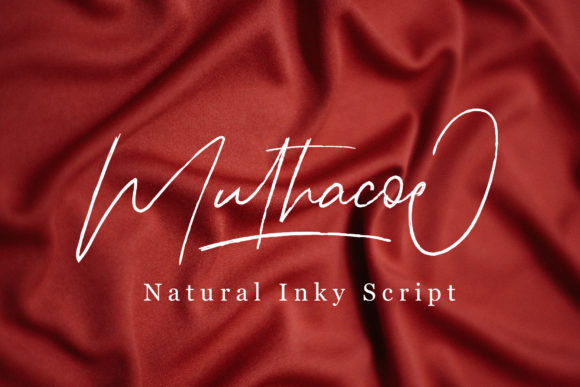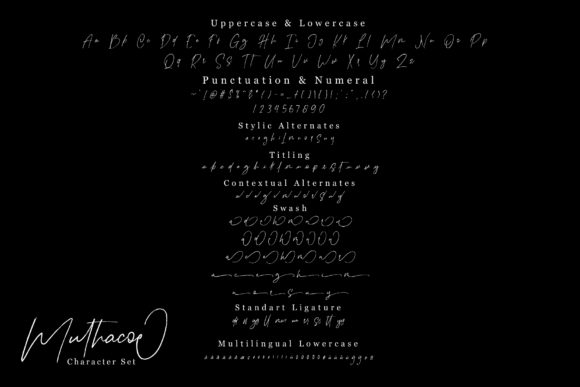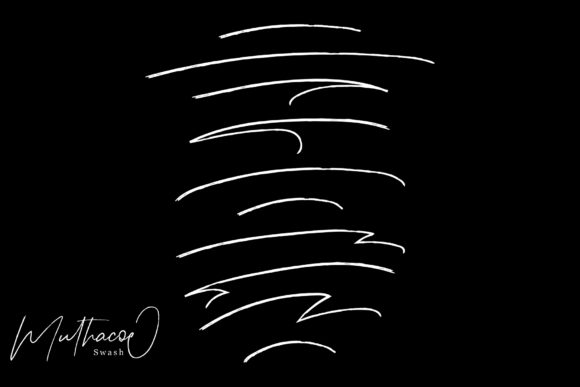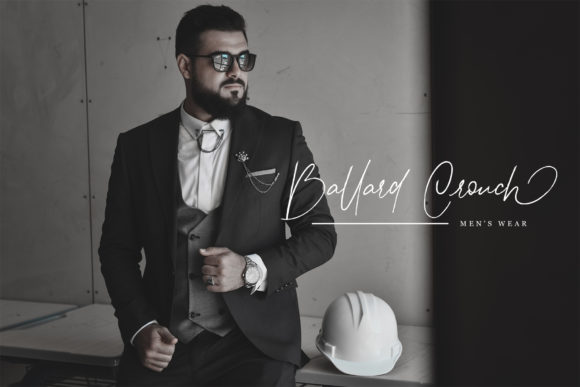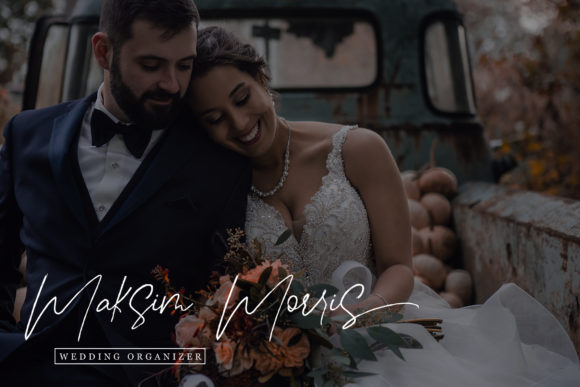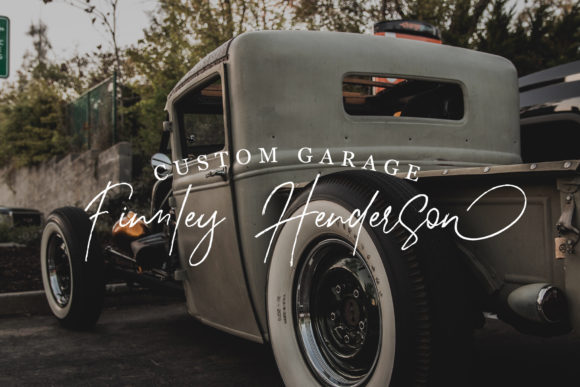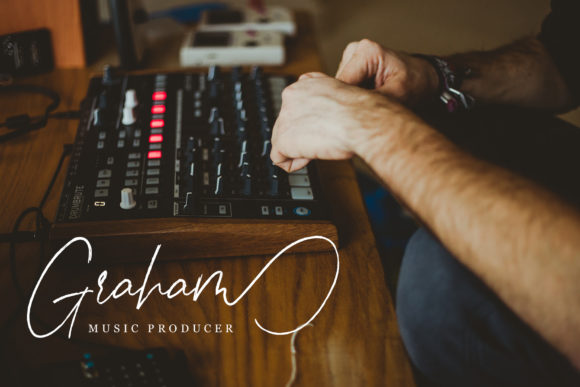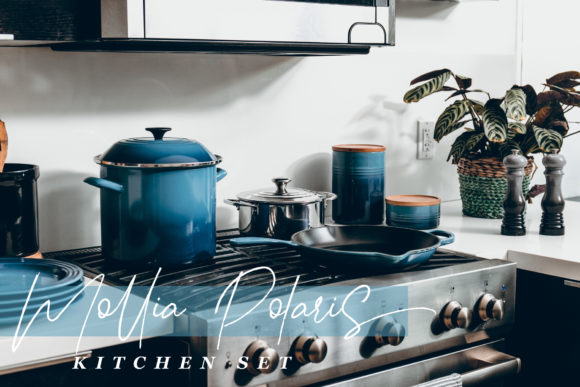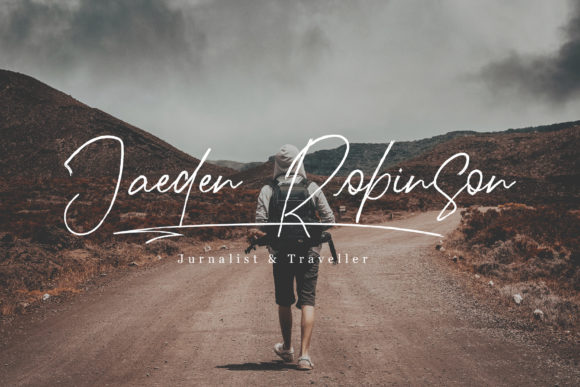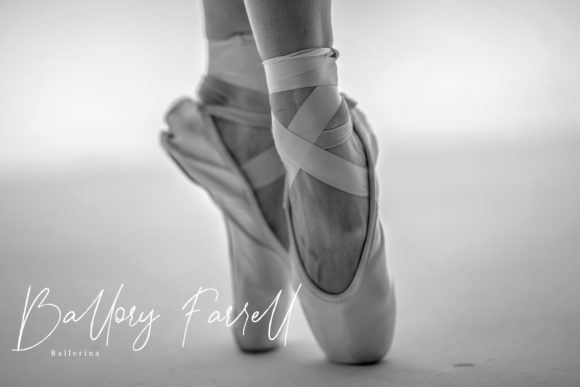
HomeScript FontsMuthacoe Font Script Fonts Muthacoe Font FacebookXPinterestWhatsApp Muthacoe Font Poster 2 Muthacoe Font Poster 3 Muthacoe Font Poster 4 Muthacoe Font Poster 5 Muthacoe Font Poster 6 Muthacoe Font Poster 7 Muthacoe Font Poster 8 Muthacoe Font Poster 9 Muthacoe Font Poster 10 Muthacoe Font Poster 11 About Muthacoe Font Muthacoe is a naturally flowing script font with a bold vibe. It will turn any design idea into a piece of art! DOWNLOAD ON CREATIVE FABRICAThis font is sold and delivered by Creative Fabrica. Font Canyon may earn a commission if you buy through this link. People also explored Palladise Font Richler Pro PE Wonderful Delight Font Children Memories Font Winterberry Cookies and Milk Font Amorillan Orgendam Font EP Lazy Font Alishanty Signature Font 315 0 TagsMuthacoe Font Previous articleJolahope FontNext articleComili Font LEAVE A REPLY Cancel reply Comment: Please enter your comment! Name:* Please enter your name here Email:* You have entered an incorrect email address! Please enter your email address here Website: Save my name, email, and website in this browser for the next time I comment. Personal Use Free Karmatic Arcade Personal Use Free Read more about this font Bitcrusher Condensed Bold Personal Use Free Read more about this font Planet Benson 2 Personal Use Free Read more about this font Arc Personal Use Free Read more about this font BLOG 5 Fonts That Will Dominate Design Trends in 2026 5 Fonts for 2026 That Will Dominate Design Trends Typography plays a critical role in visual communication, and as we look ahead to 2026, it’s... How to Cut Any Font on Cricut: Convert a Font to SVG (Free) Best Fonts for YouTube Videos: Make Your Thumbnails Stand Out Exploring Font Trends